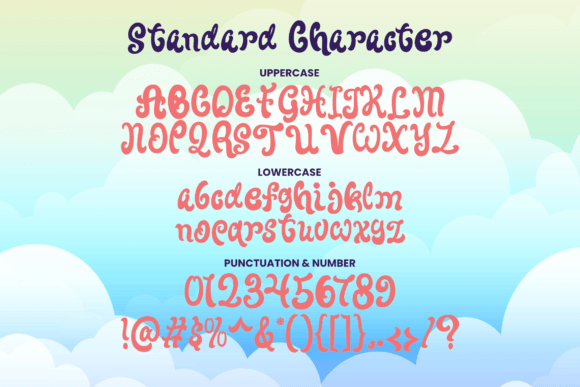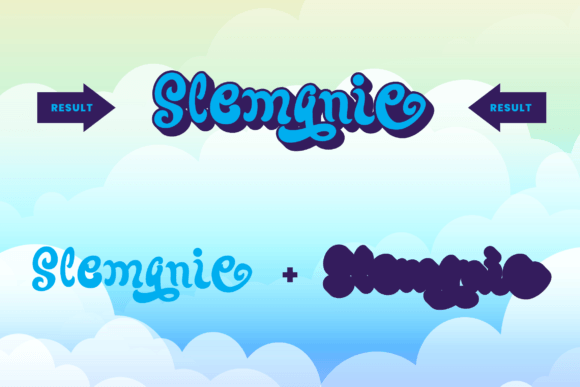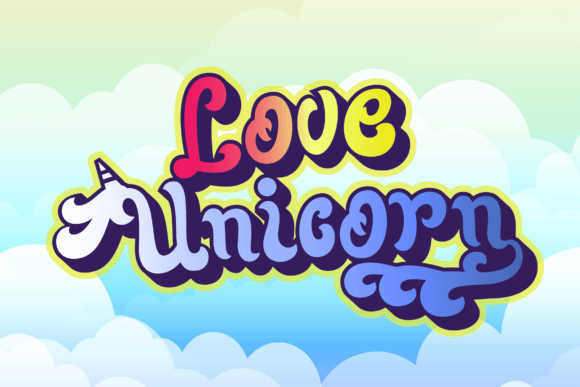
Glunicorn Font: A Playful Display Font for Cute & Creative Designs!
About the Glunicorn Font
Make a bold statement with Glunicorn Font, a powerful and memorable font. Glunicorn is a fun, jolly and incredibly charming display font. It embodies playfulness and authenticity and is the perfect choice for any children activity or school project.
Glunicorn’s playful charm makes it ideal for headlines, logos for children’s brands, posters for events, and packaging for toys or sweets. It also works well in short, impactful social media posts or celebratory invitations. However, its decorative nature makes it unsuitable for body text, long paragraphs, or user interfaces where readability is paramount.
Pairing Glunicorn effectively requires a contrasting typeface to balance its whimsical energy. A clean sans-serif like Open Sans or Lato provides a modern counterpoint, while a classic serif such as Garamond or Playfair Display offers a sophisticated contrast. For a more playful combination, consider pairing it with a rounded sans-serif font.
Glunicorn projects a friendly, approachable personality. Its overall mood is lighthearted and optimistic, making it a strong choice for projects that aim for a youthful and engaging feel.